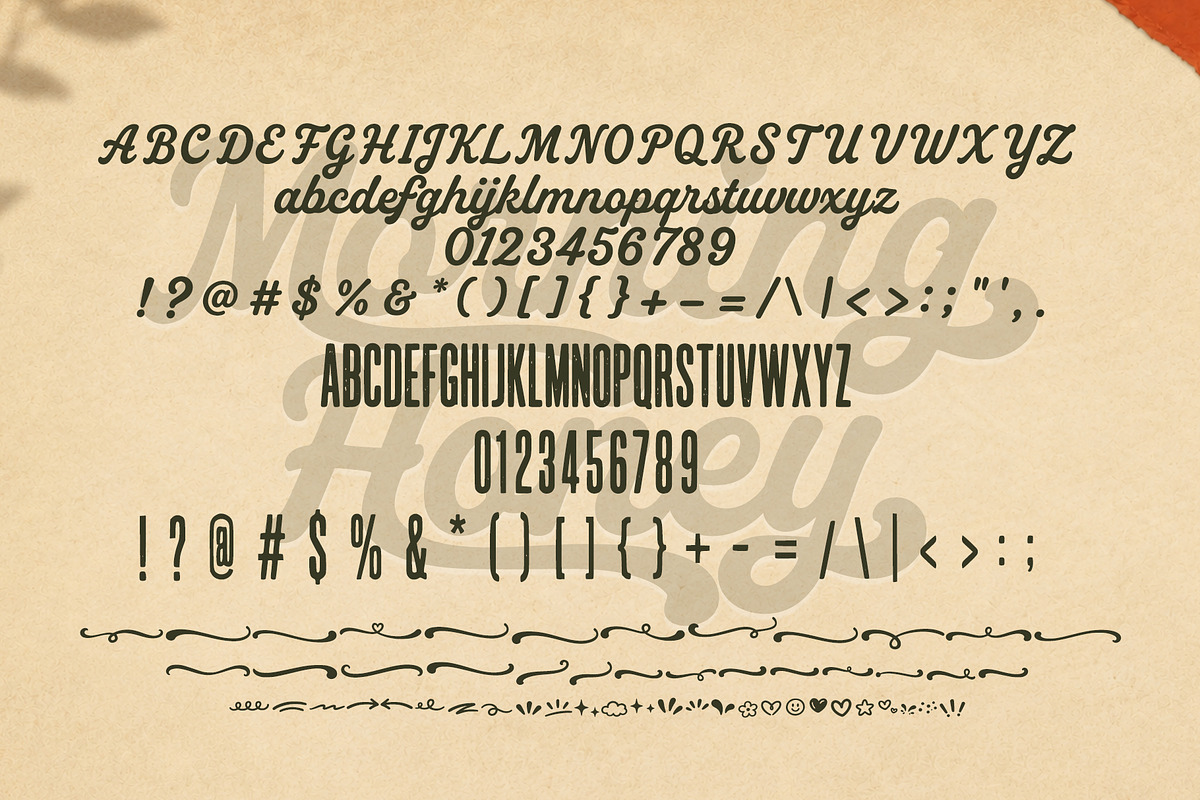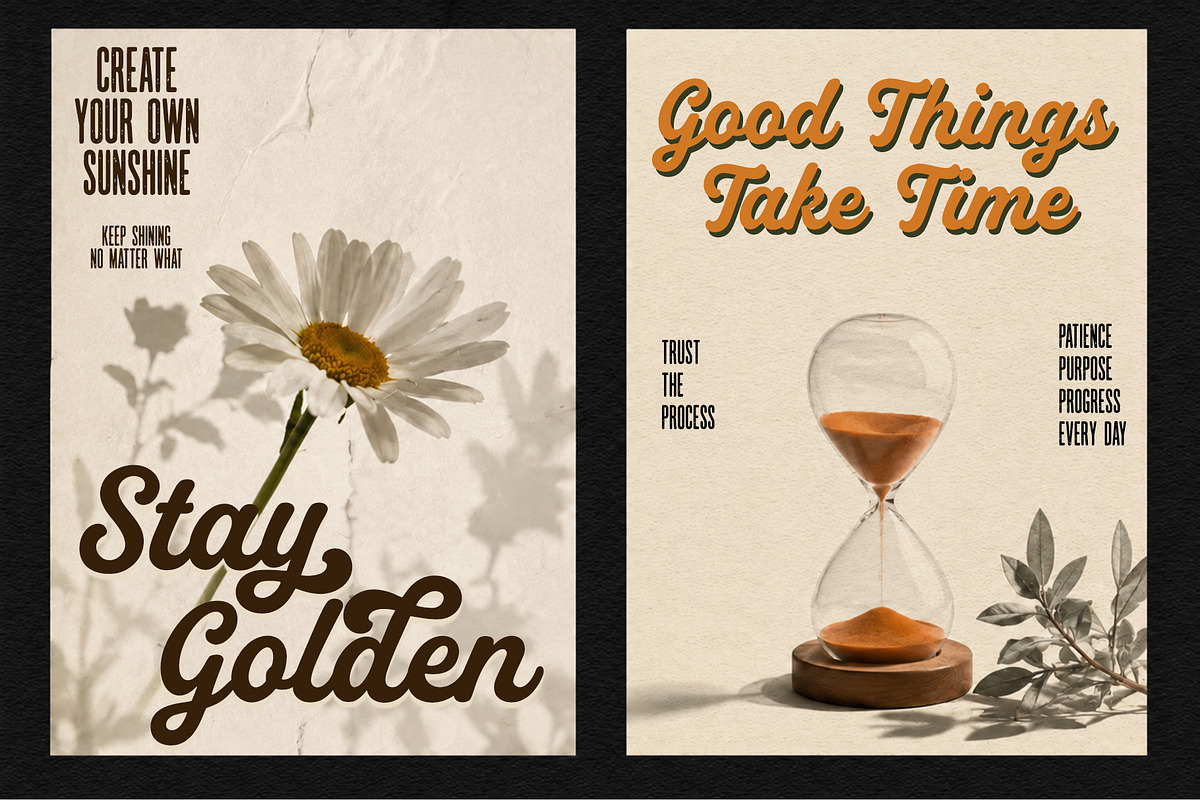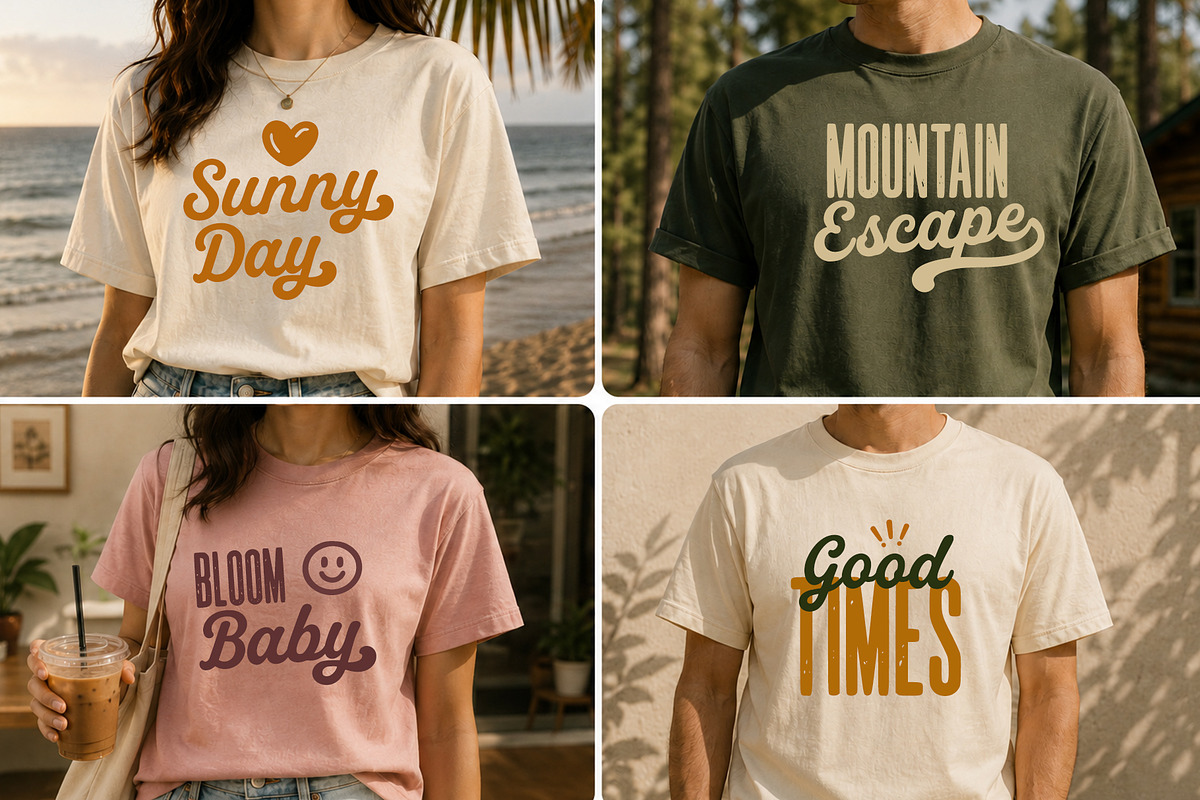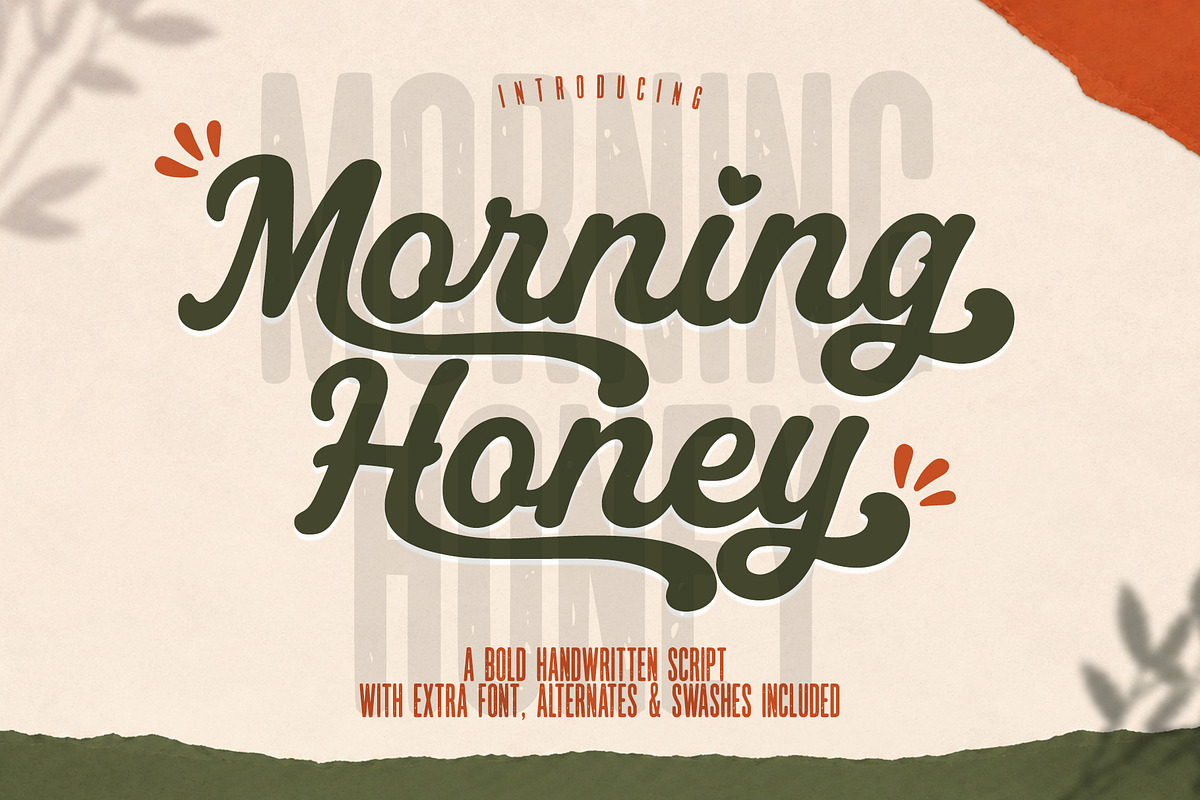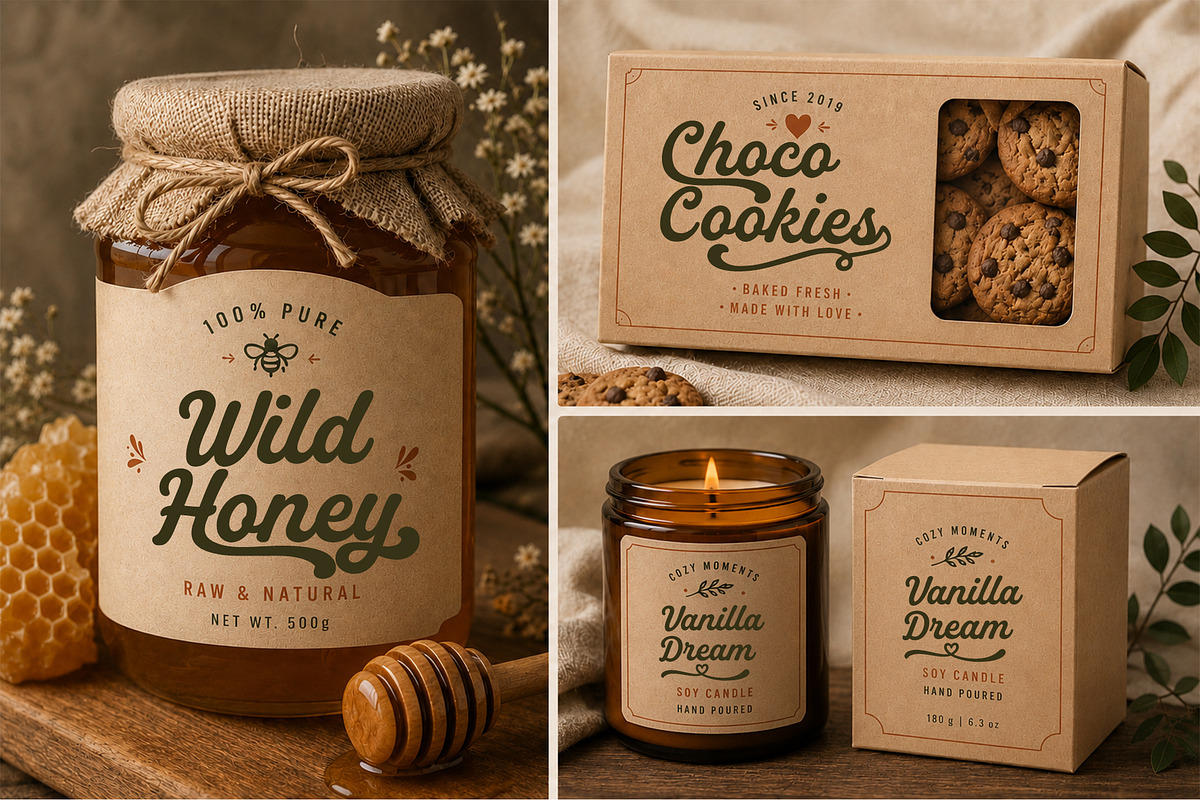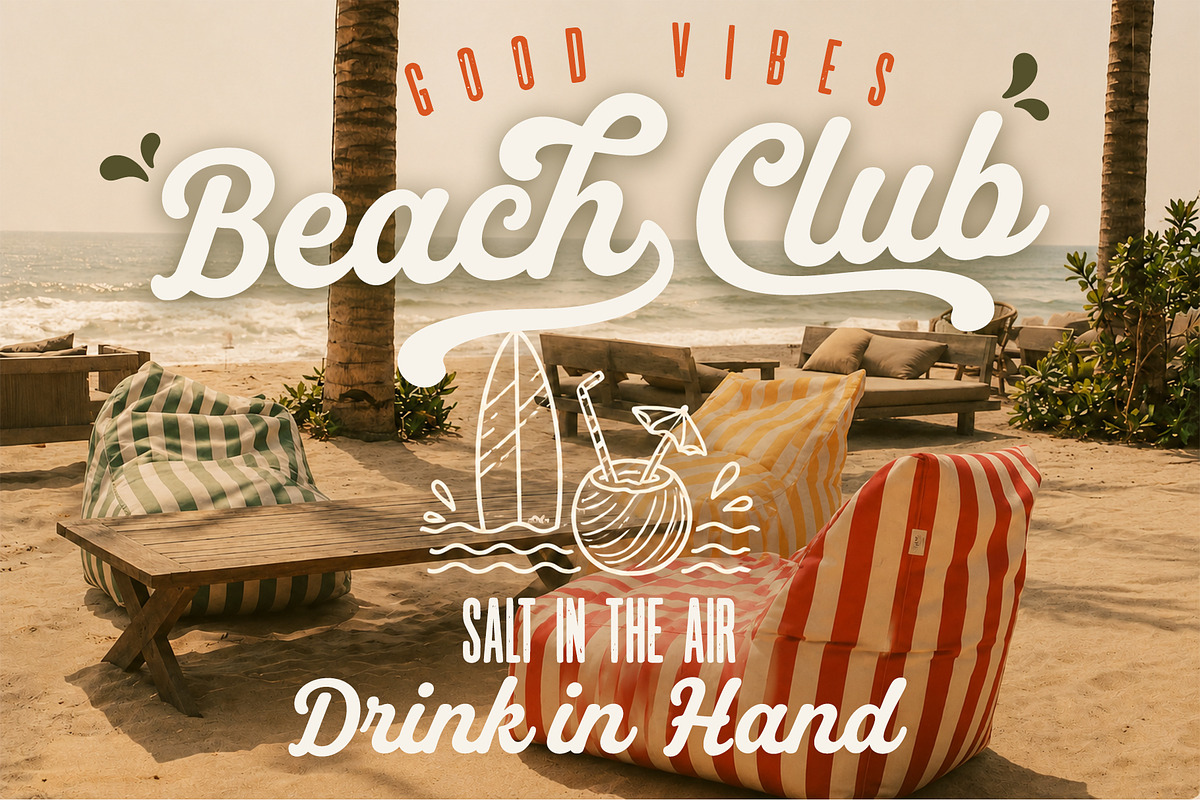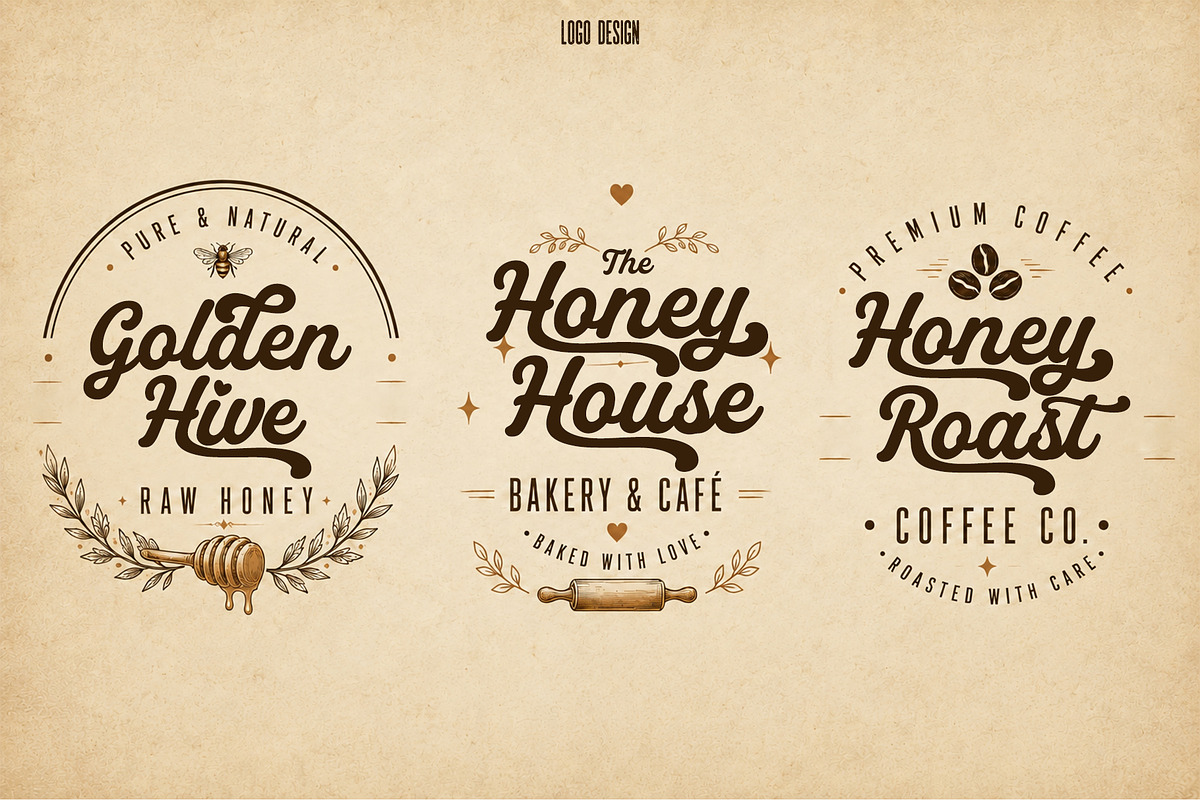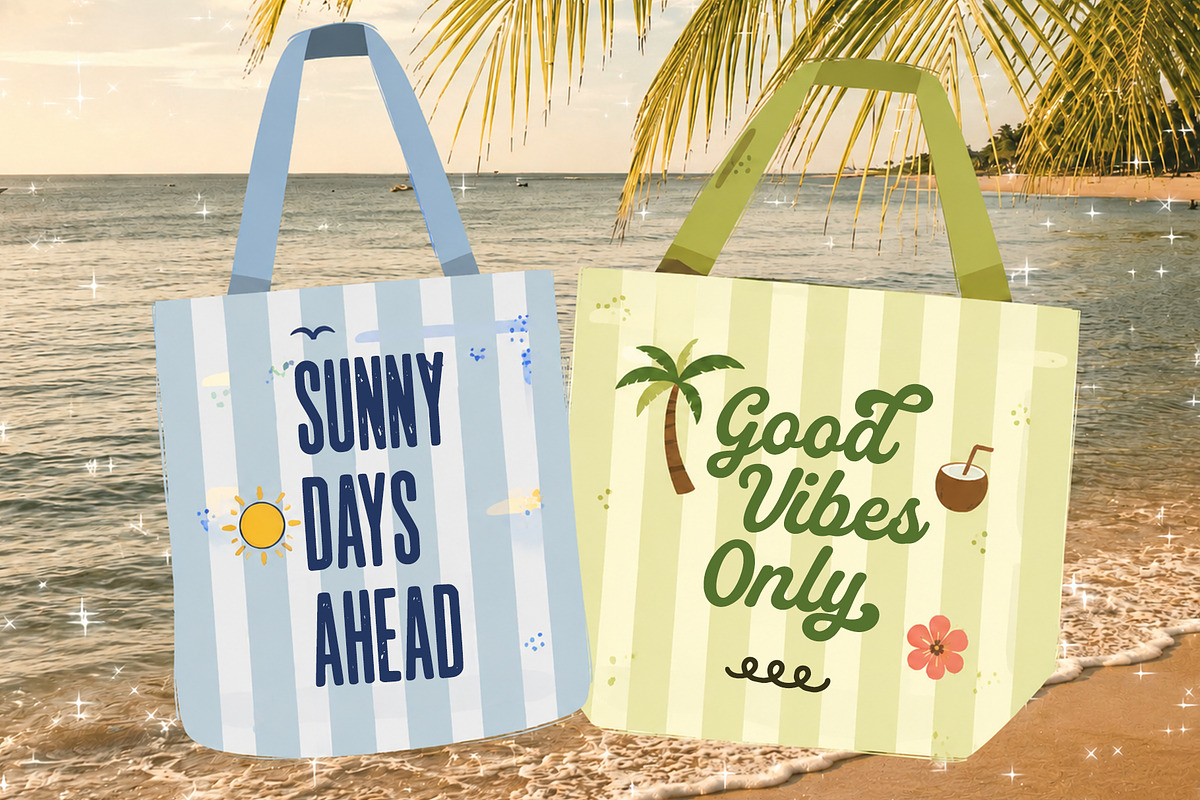
Morning Honey
Morning Honey is a bold handwritten script font with a warm, playful, and natural character. Designed with smooth curves, rounded strokes, and flowing swashes, it creates an inviting handcrafted look that works beautifully across a wide range of creative projects.
Its bold style offers excellent readability while maintaining an authentic handwritten feel. Whether used for branding, packaging, logos, social media, apparel, or printable designs, Morning Honey adds a charming and friendly touch to every composition.
Packed with stylish alternates and decorative swashes, this font makes it easy to create unique lettering and eye-catching typography with minimal effort.